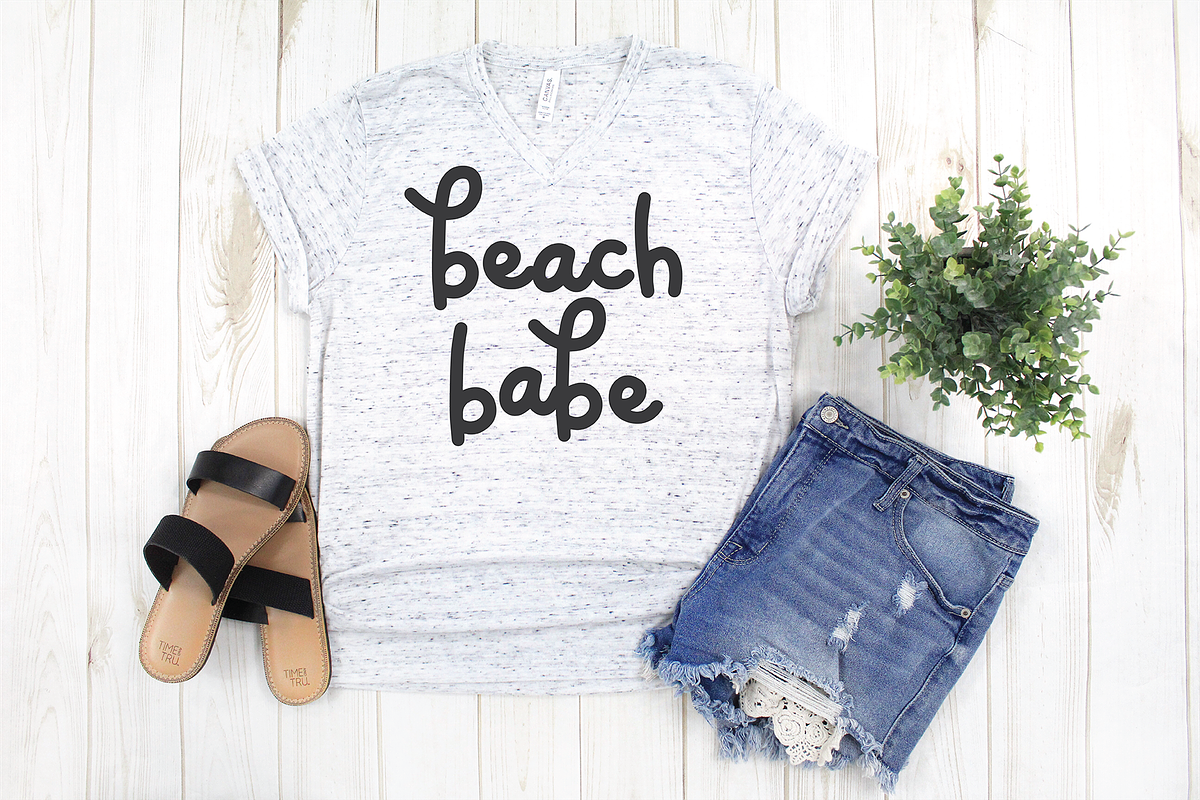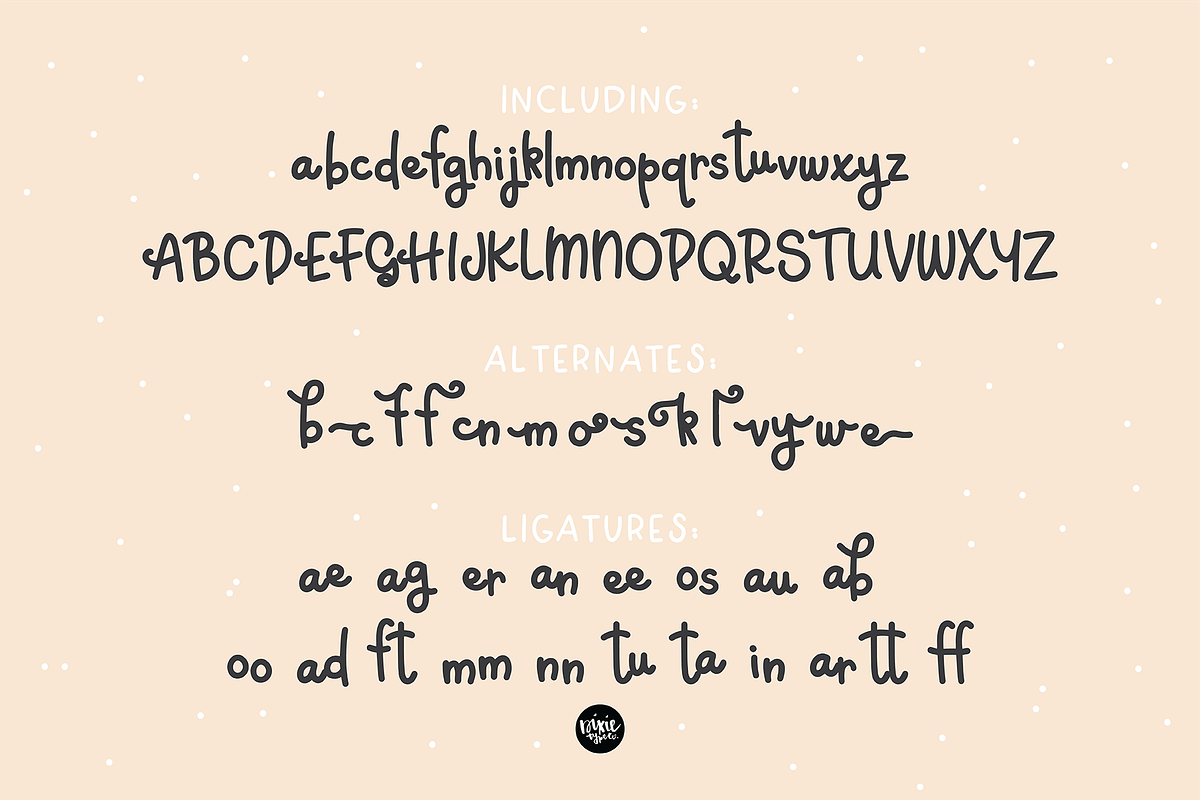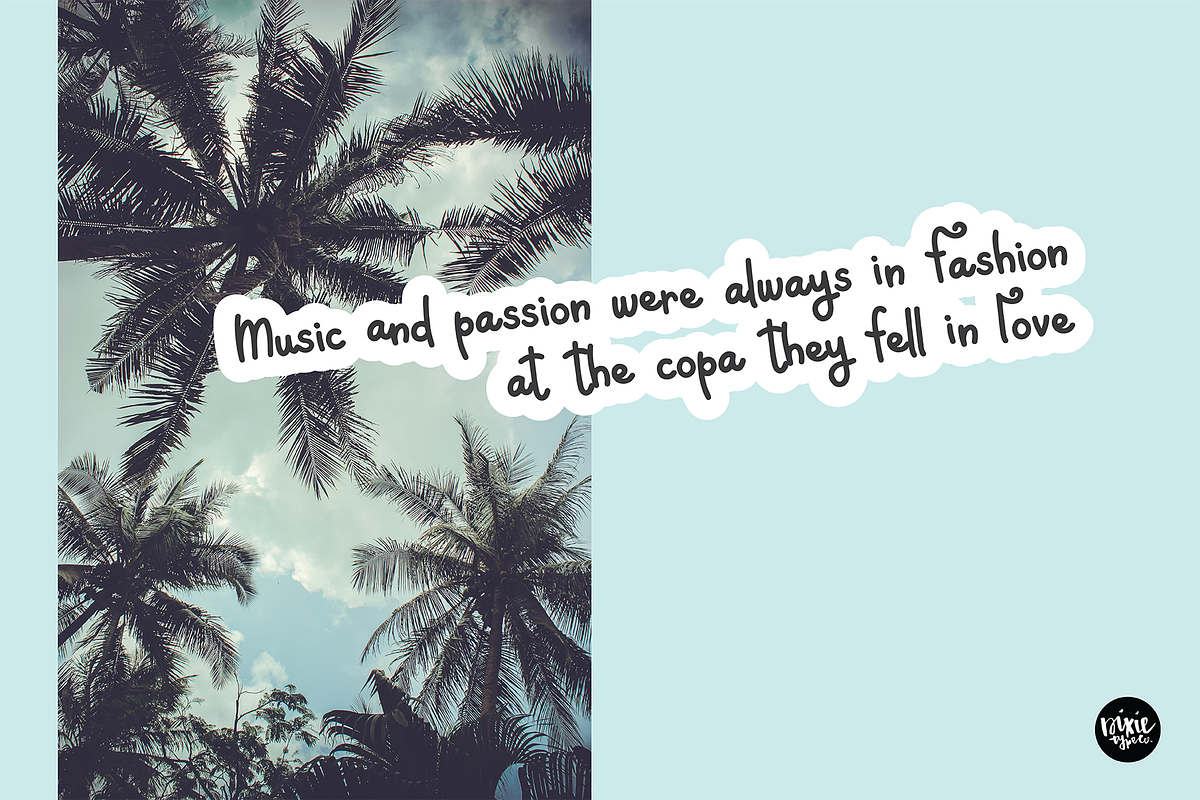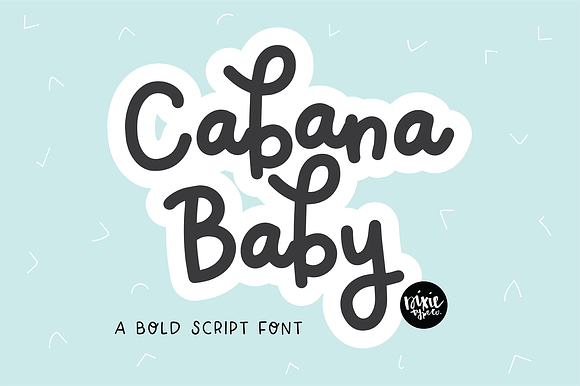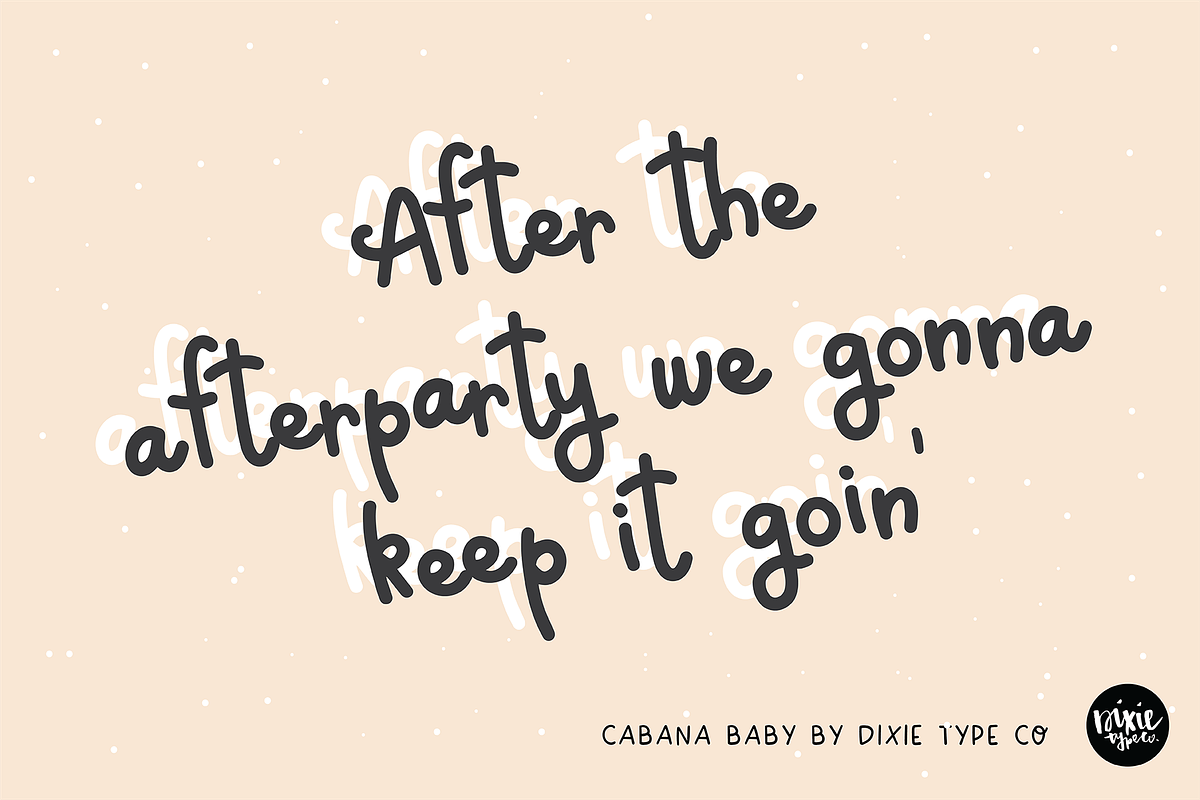
CABANA BABY A Bold Script .OTF Font
"Cabana Baby" bold hand lettered script font.
{ Typographic script font hand lettered with love by Dixie Type Co. }
A hand lettered brush font including all upper and lowercase letters, basic punctuation, ligatures, and 14 alternate characters.
- } A hand lettered brush font including all upper and lowercase letters, basic punctuation, ligatures, and 14 alternate characters.
CABANA BABY A Bold Script .OTF Font by Blush Font Co. fits naturally into Branding, posters, packaging, typography.